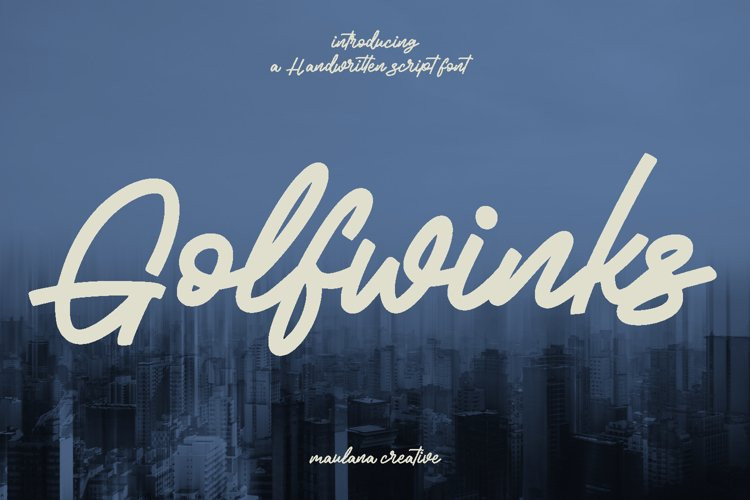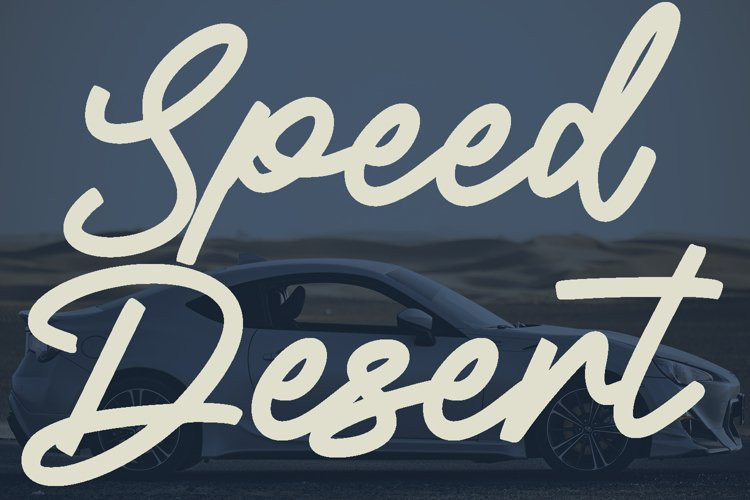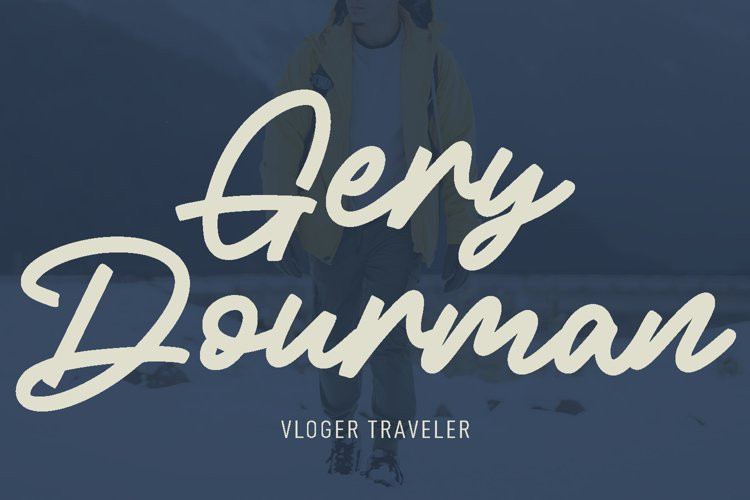
Golfwinks Font
Golfwinks FontGolfwinks is a fancy handwritten script font. With bold contrast stroke, fun character with a bit of ligatures and alternates. To give you an extra creative work. Golfwinks font support multilingual more than 100+ language. This font is good for logo design, Social media, Movie Titles, Books Titles, a short text even a long text letter and good for your secondary text font with sans or serif. Make a stunning work with Golfwinks font.